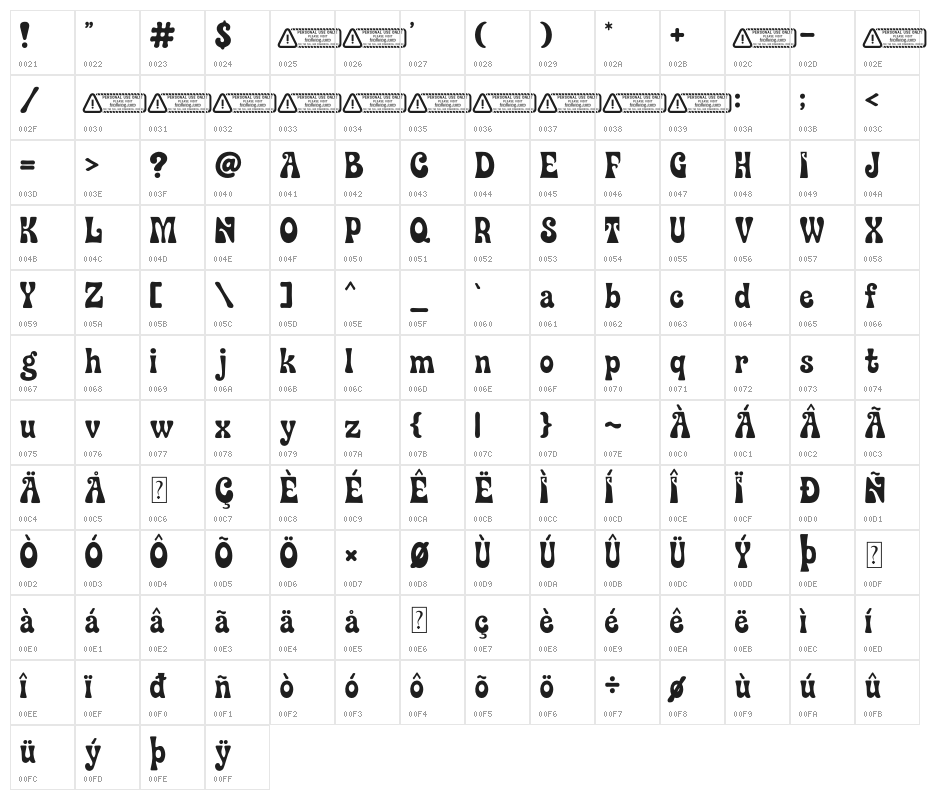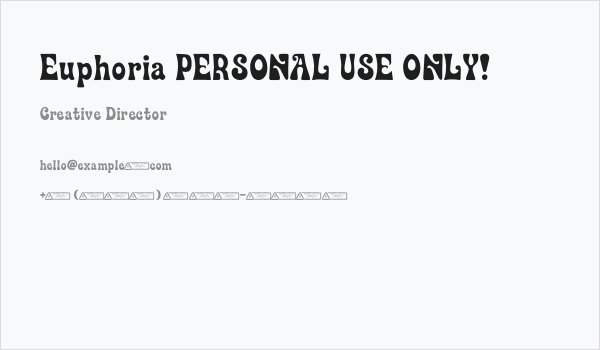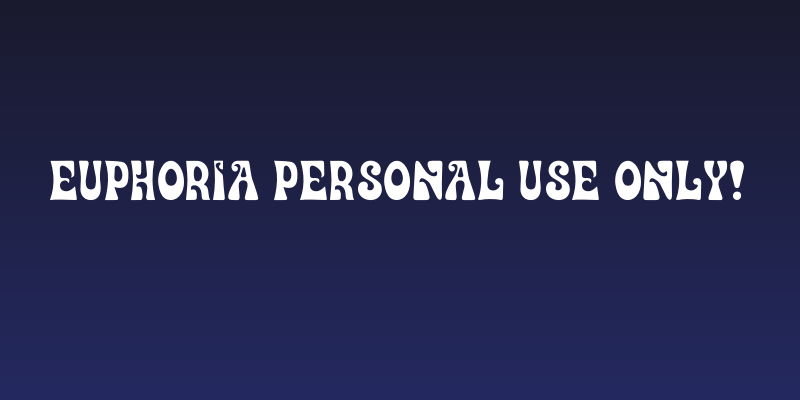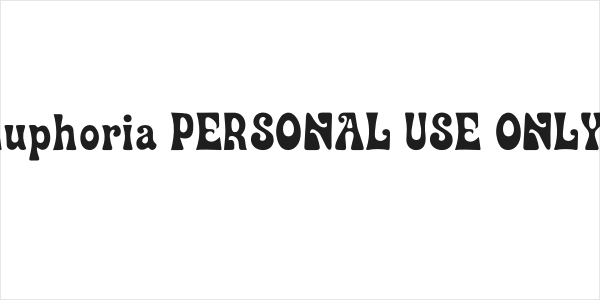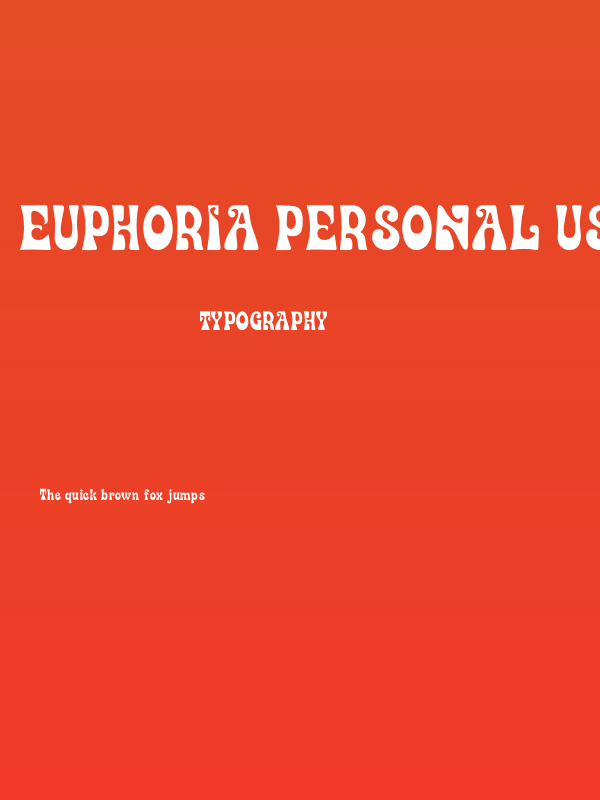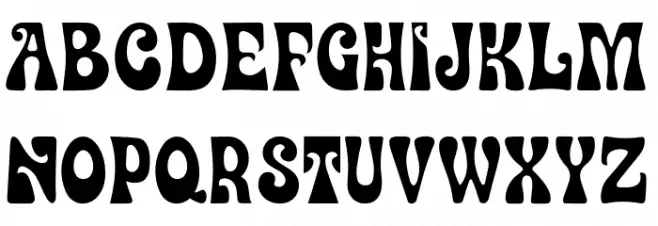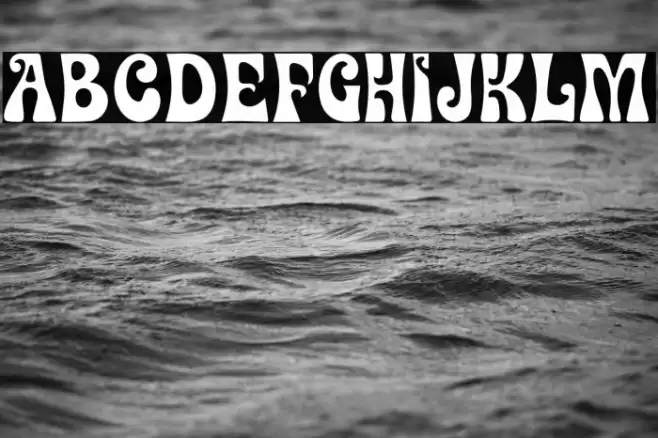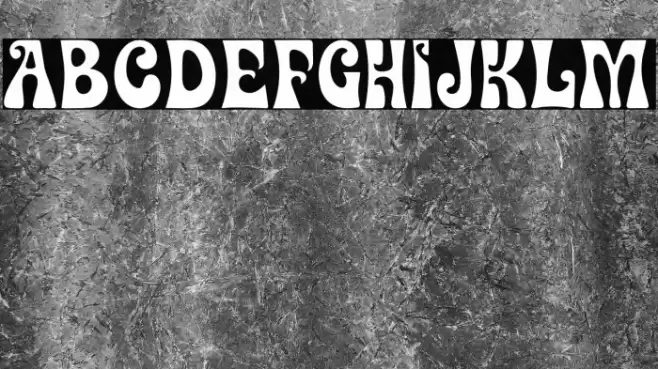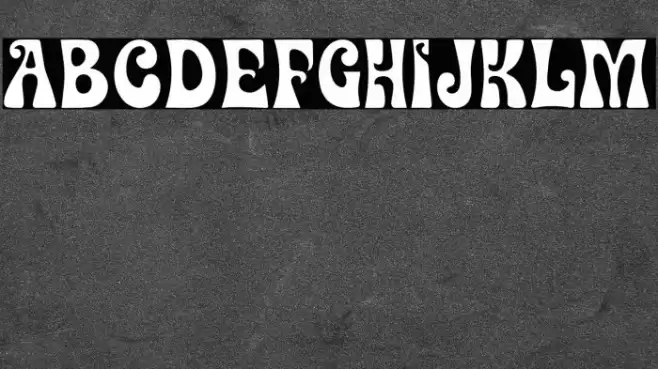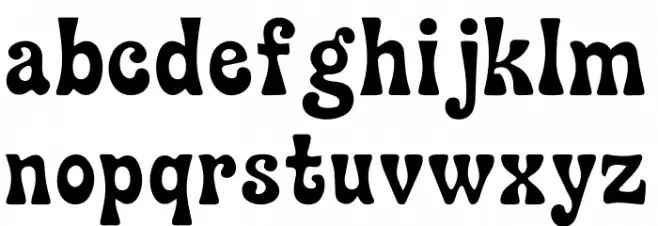
Euphoria PERSONAL USE ONLY! Font
Euphoria PERSONAL USE ONLY! Description
A playful, bold, and rounded display font with a vintage, whimsical style. The uppercase letters are chunky with unique, exaggerated curves and serifs, while the lowercase letters are similarly rounded and bold, maintaining a consistent playful aesthetic. The font includes numerals and punctuation with decorative elements.
| Overall Style | Vintage, Playful, Retro |
| Use Case | Headlines, Posters, Logos, Branding |